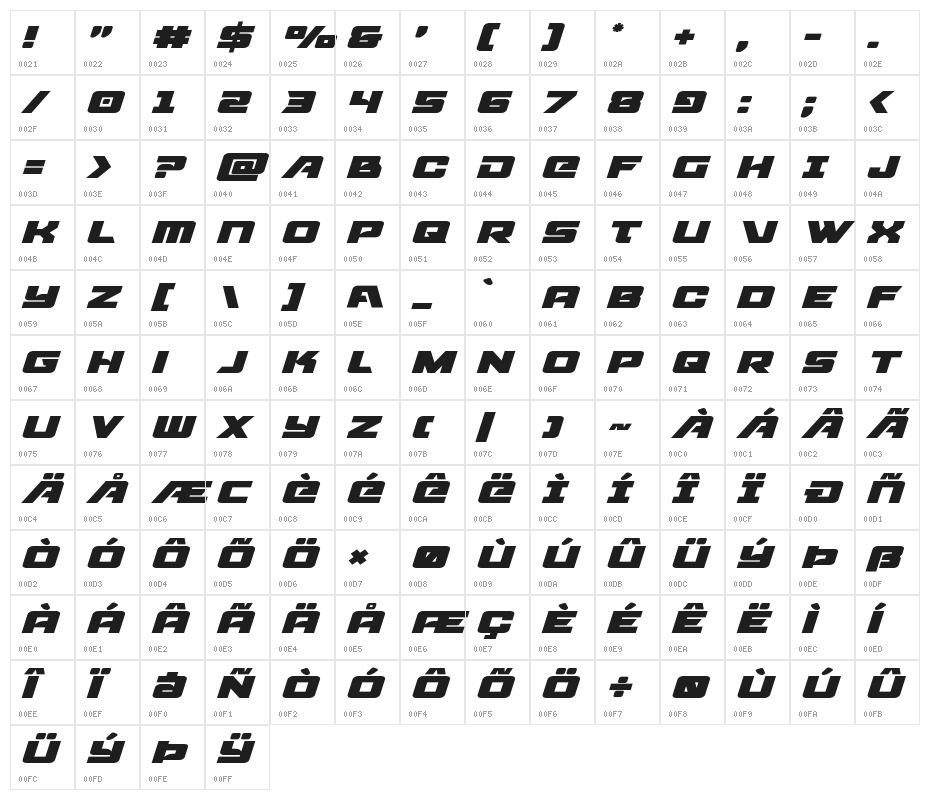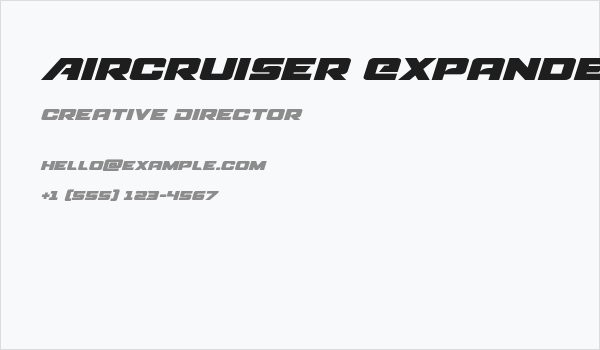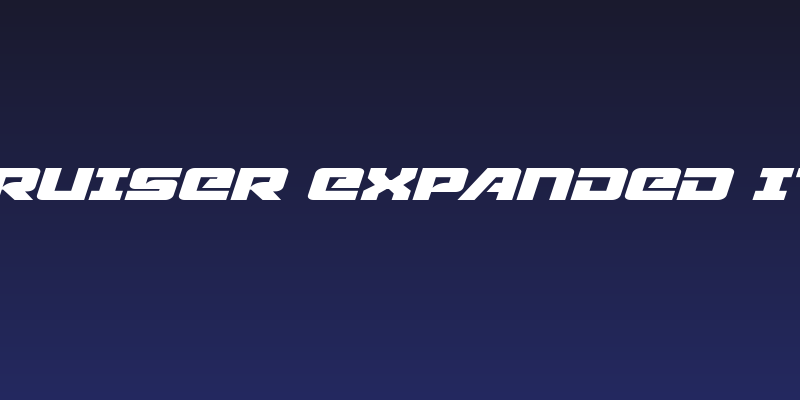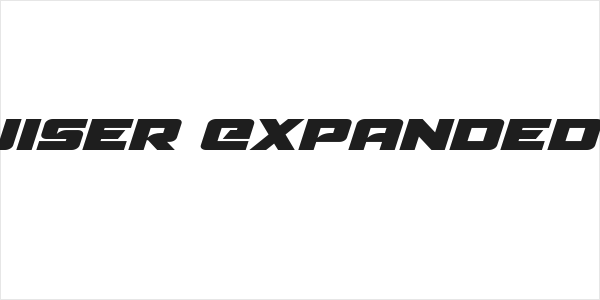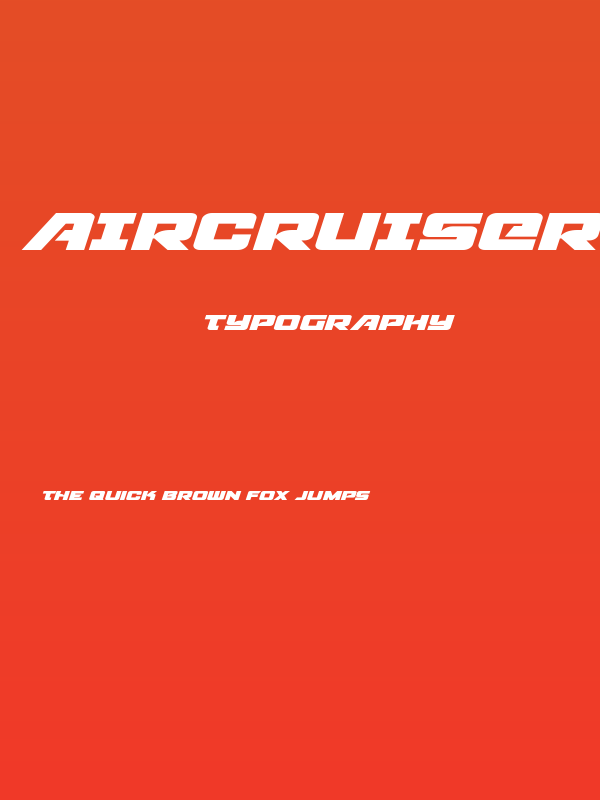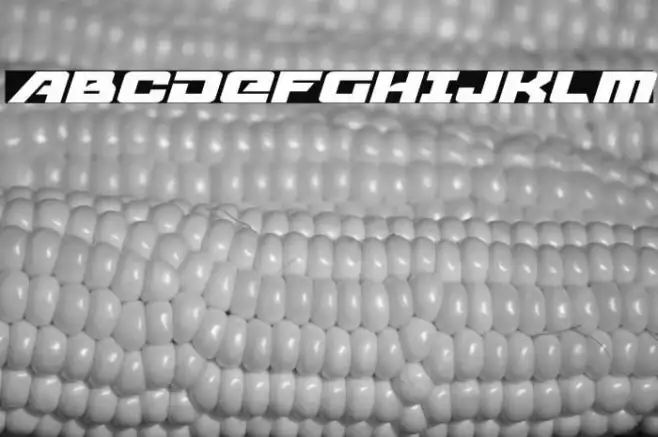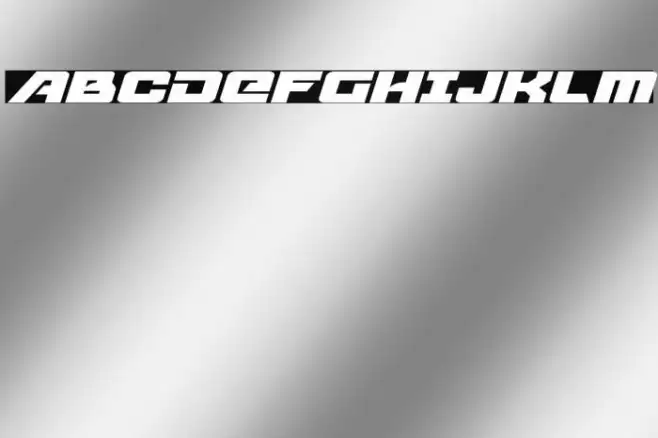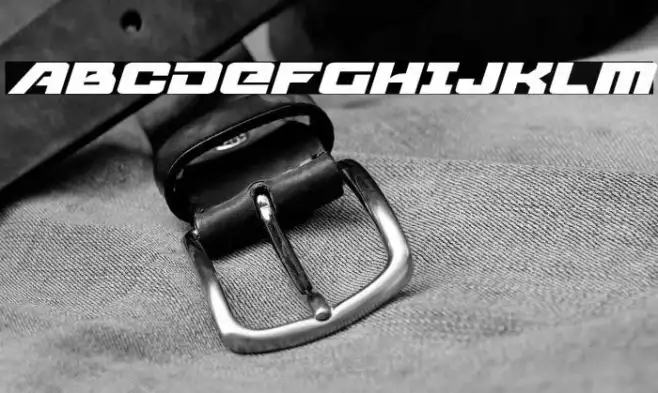
Aircruiser Expanded Italic Font
Aircruiser Expanded Italic Description
This font features a bold and dynamic style with an italic slant, giving it a sense of motion and speed. The characters are expanded, providing a wide stance that enhances readability while maintaining a strong visual impact. The geometric shapes and sharp angles contribute to a modern and futuristic appearance, making it suitable for projects that require a bold statement. The uniform stroke width ensures consistency across all characters, and the spacing is balanced to maintain legibility. This font is ideal for headlines, posters, and branding that aim to capture attention with a sleek and contemporary look.
| Proposed Projects | Ideal for use in automotive branding, sports team logos, futuristic posters, and tech-related advertisements. |